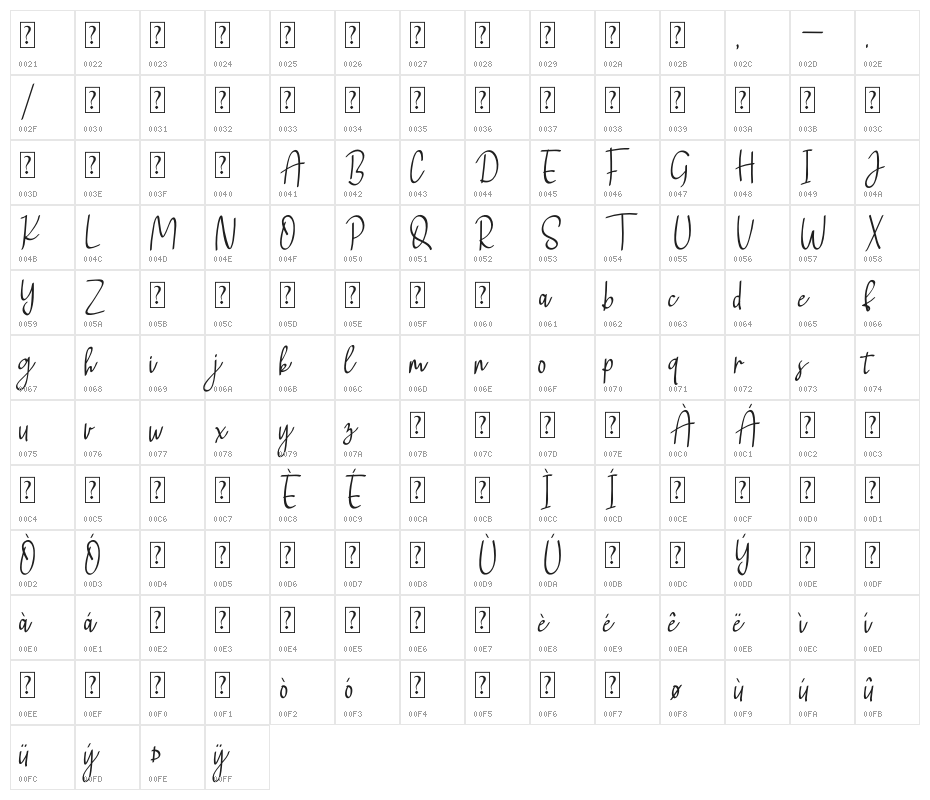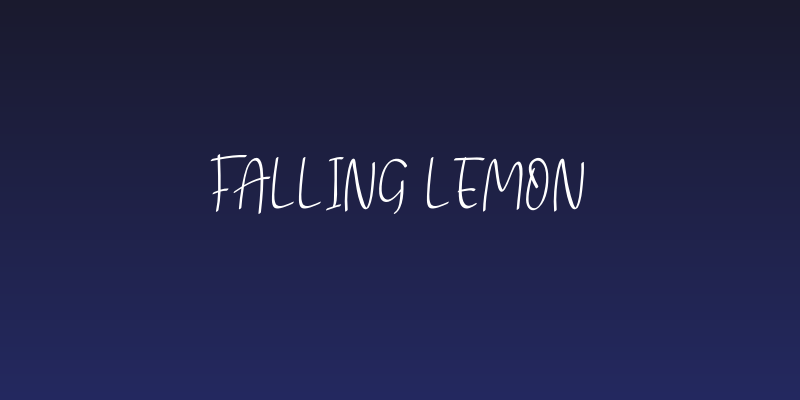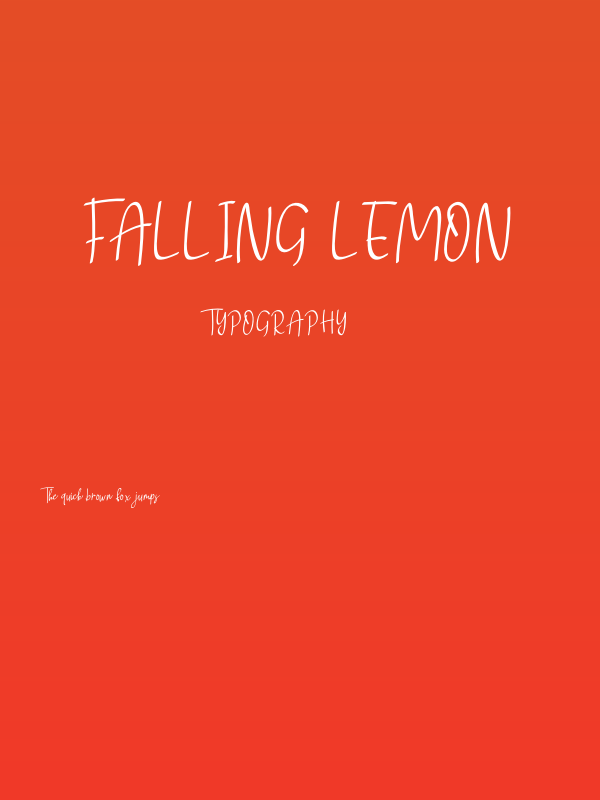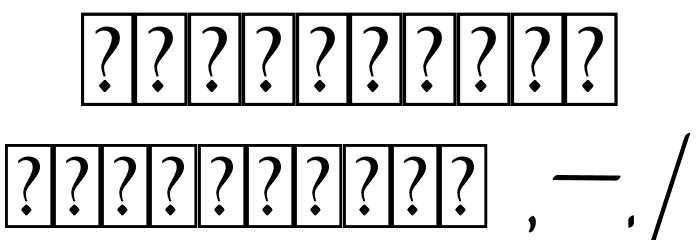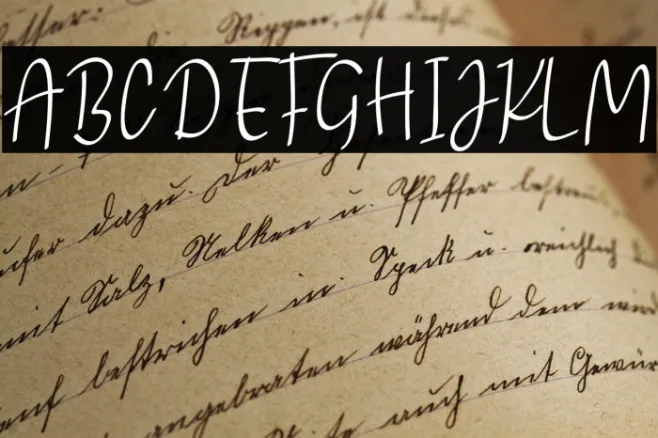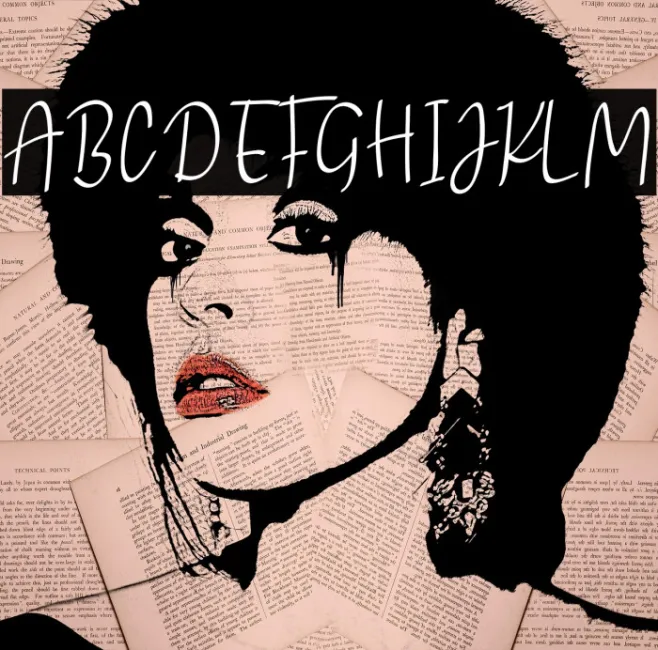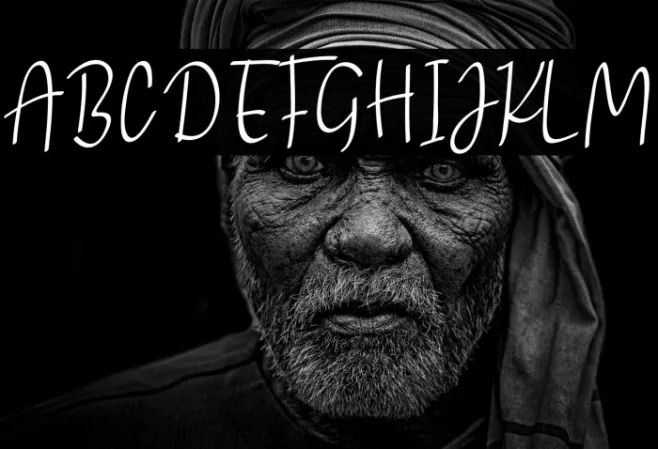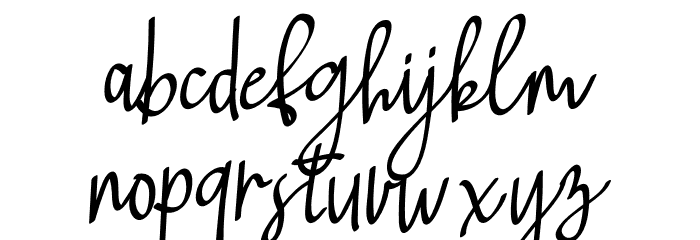
Falling Lemon Font
Falling Lemon Description
This font features a playful and casual handwritten style, characterized by its flowing and slightly irregular letterforms. The uppercase letters are tall and slender, while the lowercase letters exhibit a more pronounced cursive influence, with loops and curves that add a sense of movement and personality. The overall appearance is informal yet stylish, making it suitable for creative and artistic projects. The font's unique charm lies in its ability to convey a sense of spontaneity and warmth, making it ideal for designs that require a personal touch.
| Proposed Projects | Ideal for greeting cards, invitations, personal branding, and creative social media graphics. |